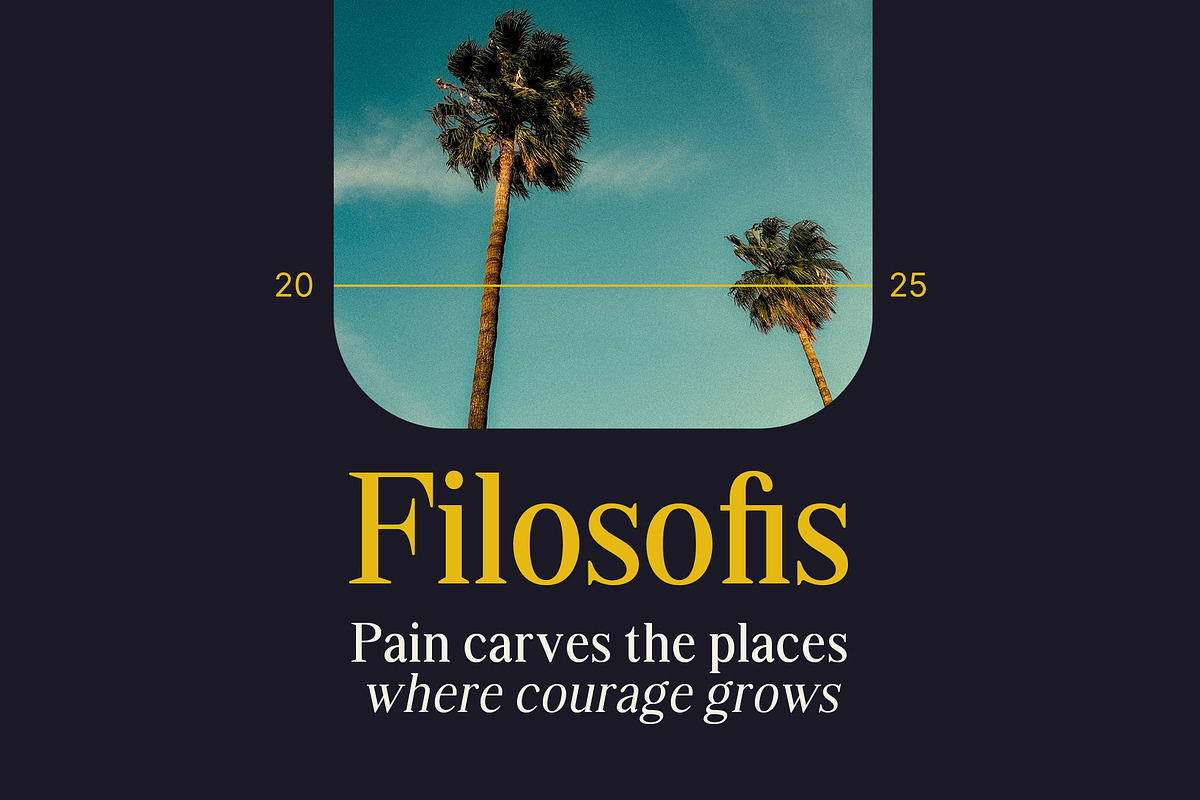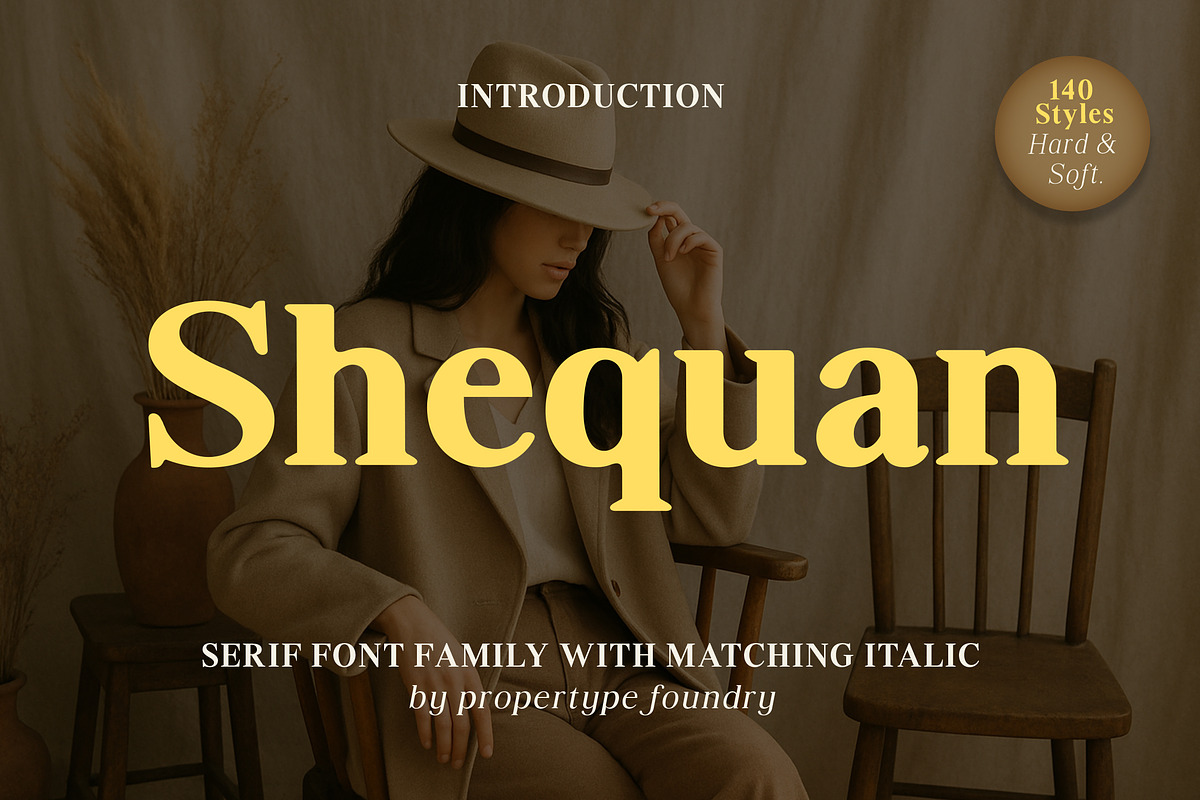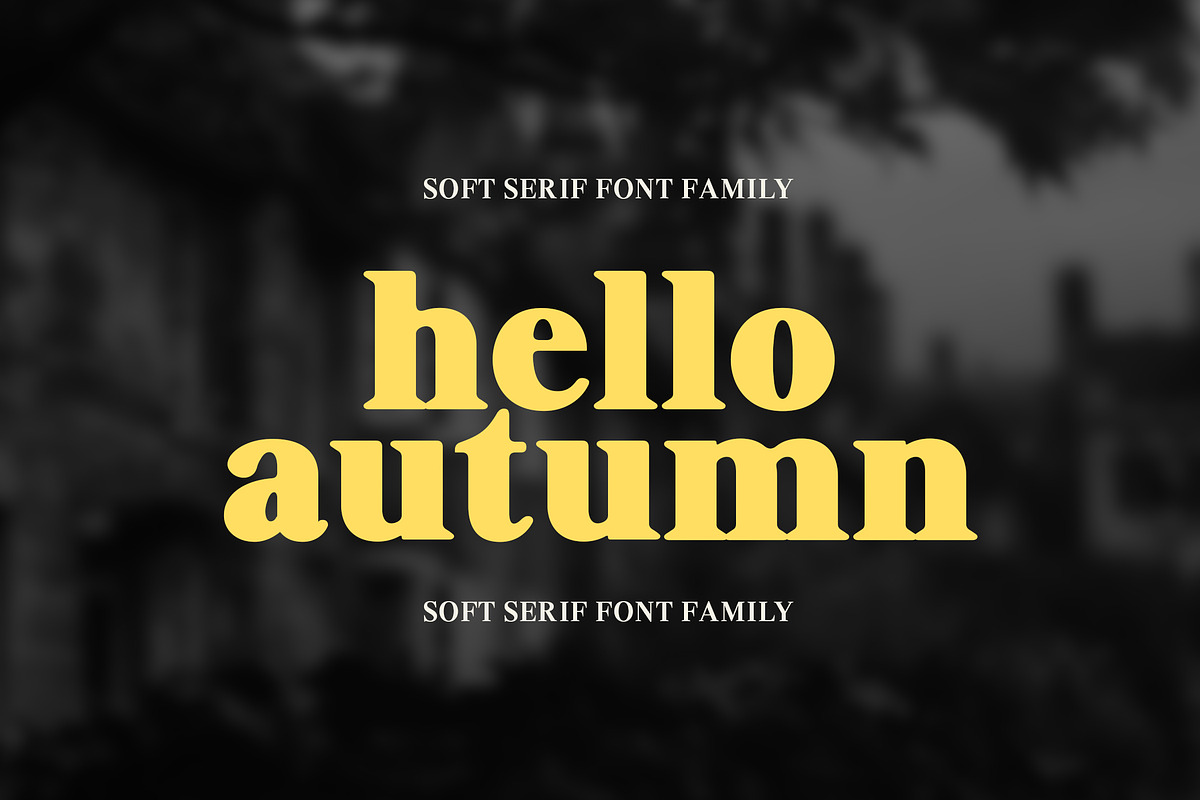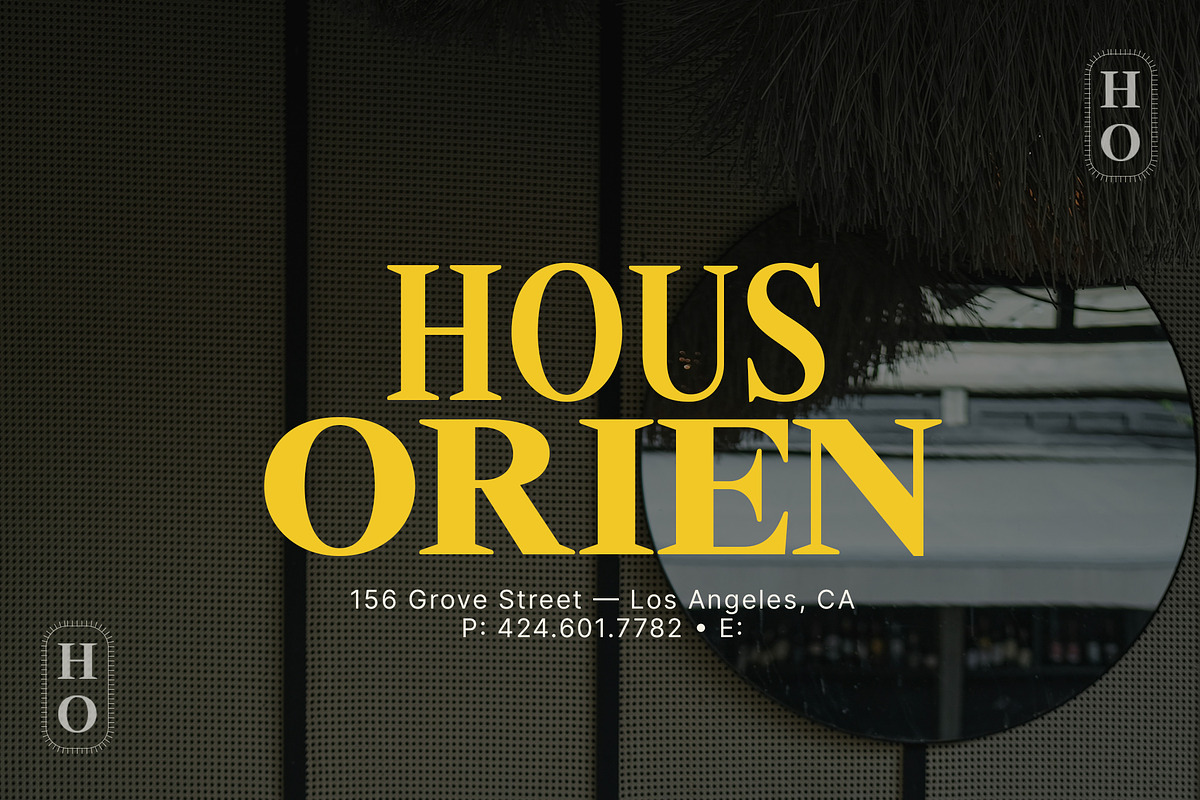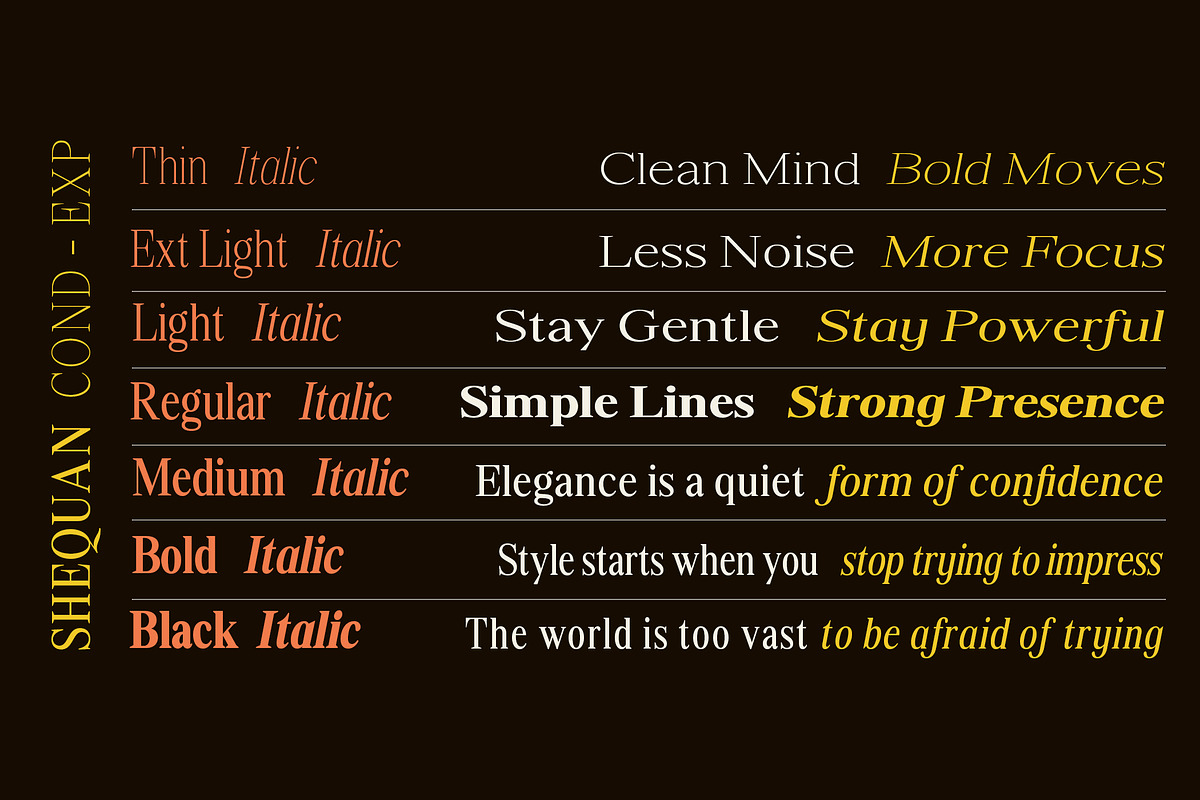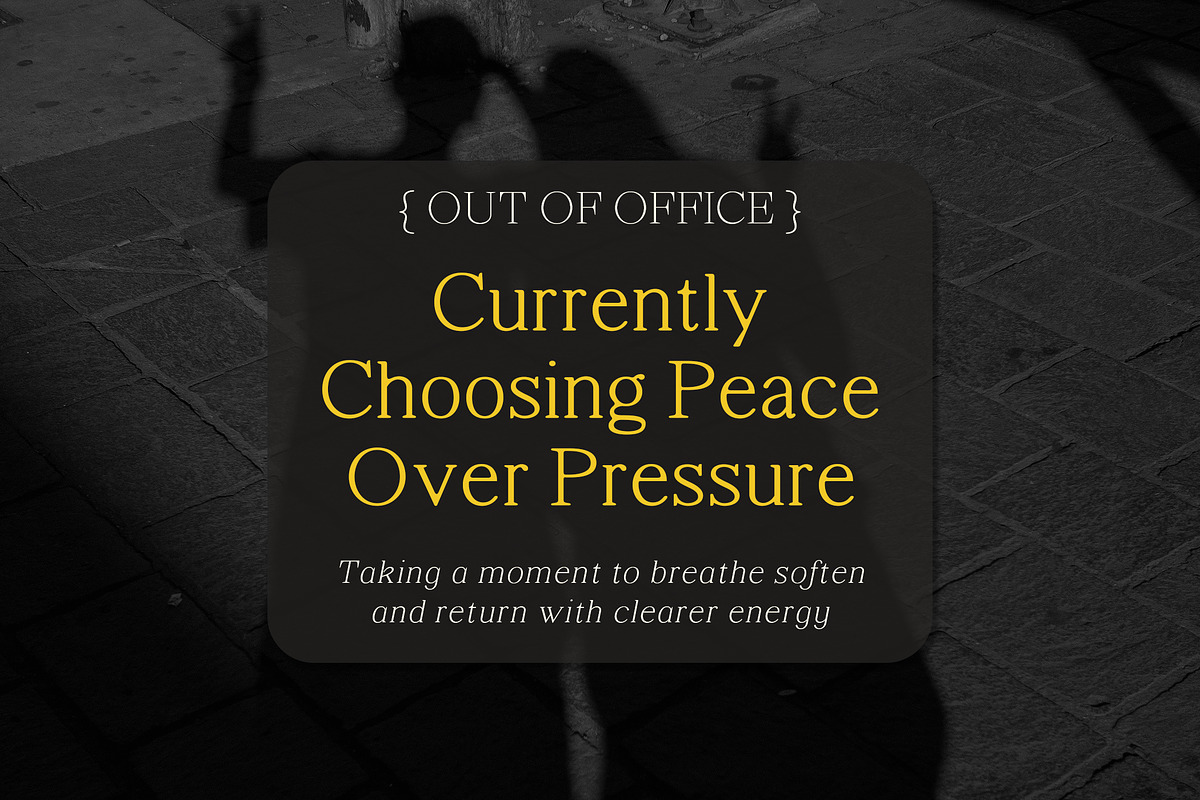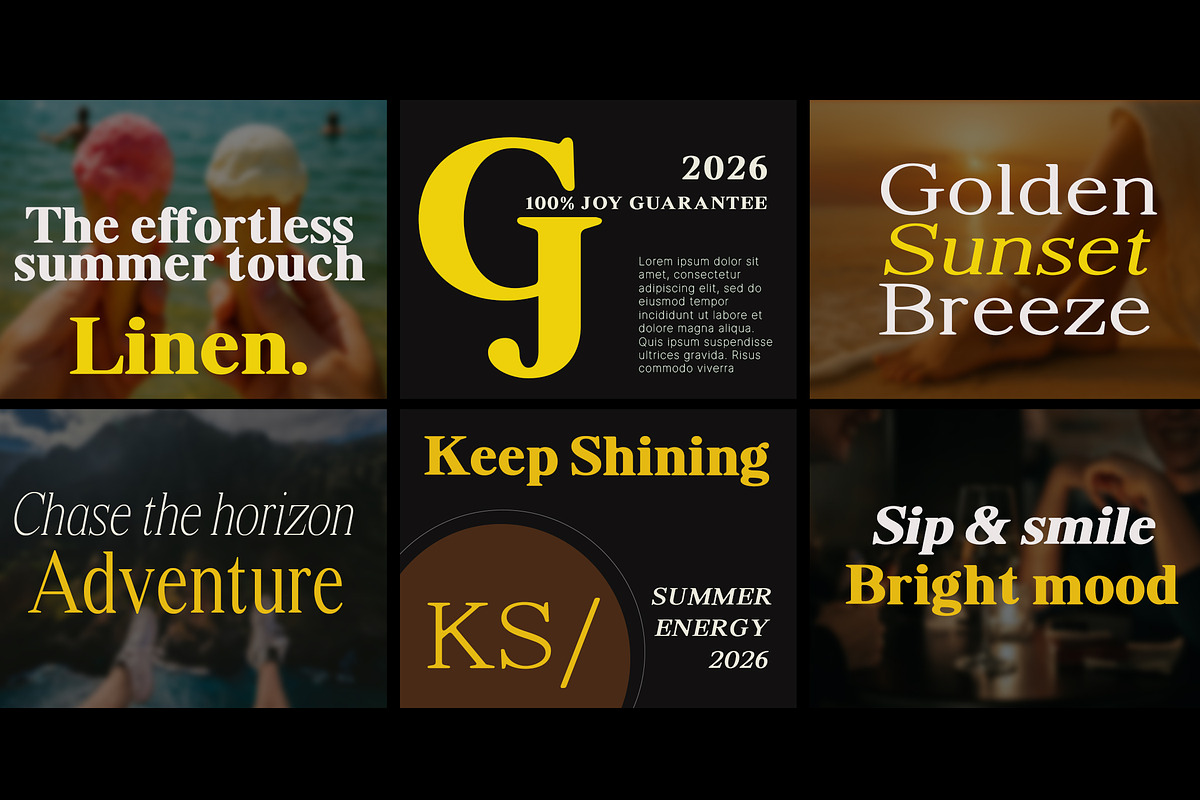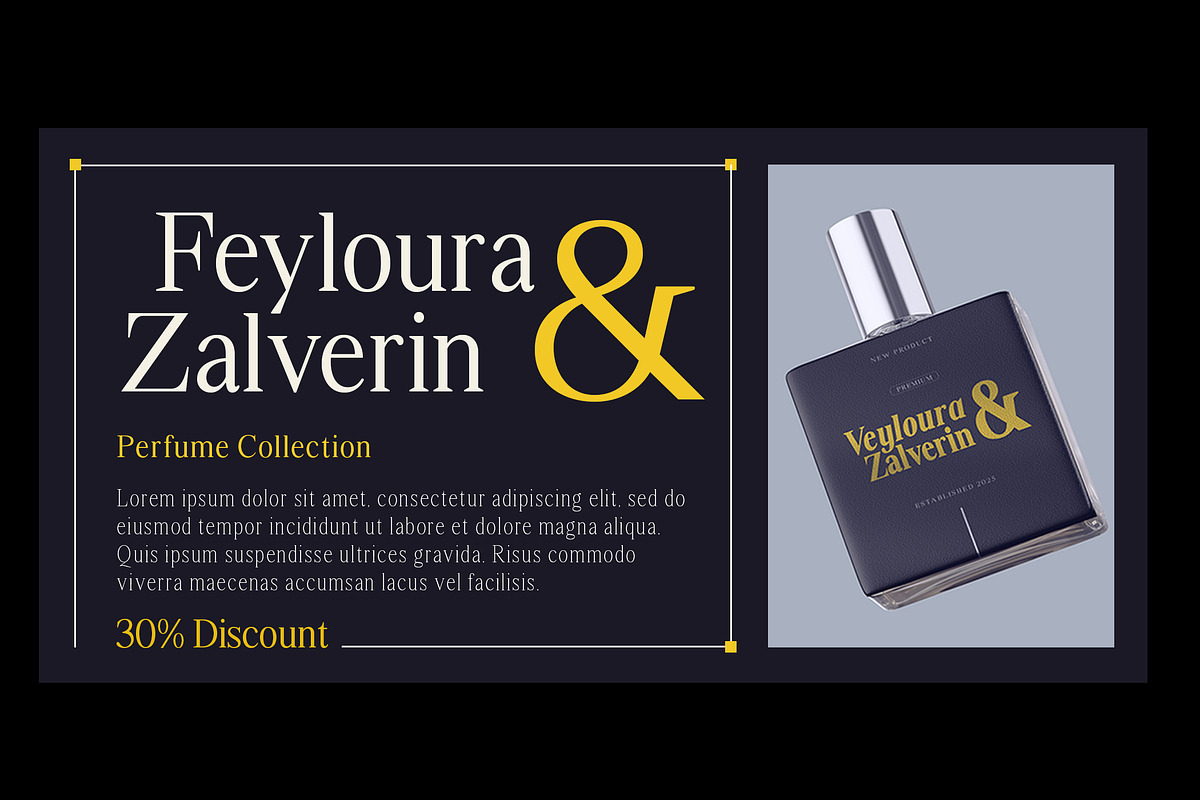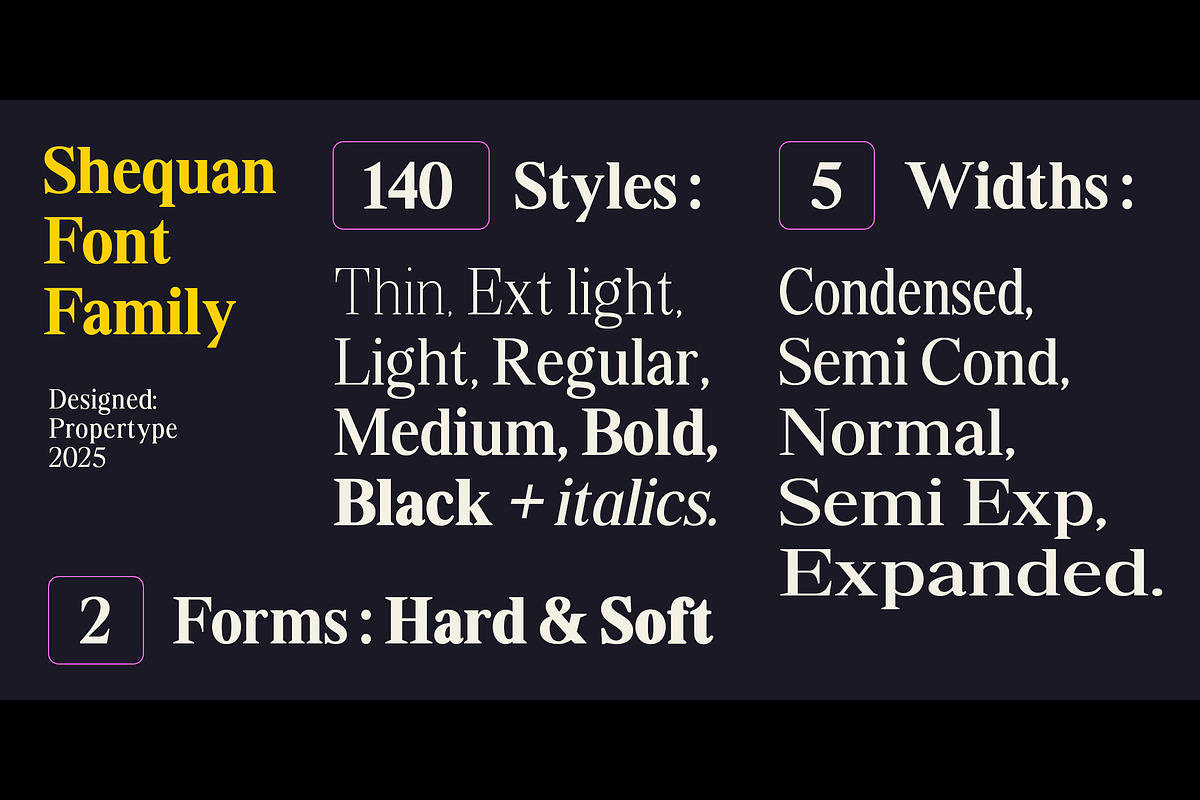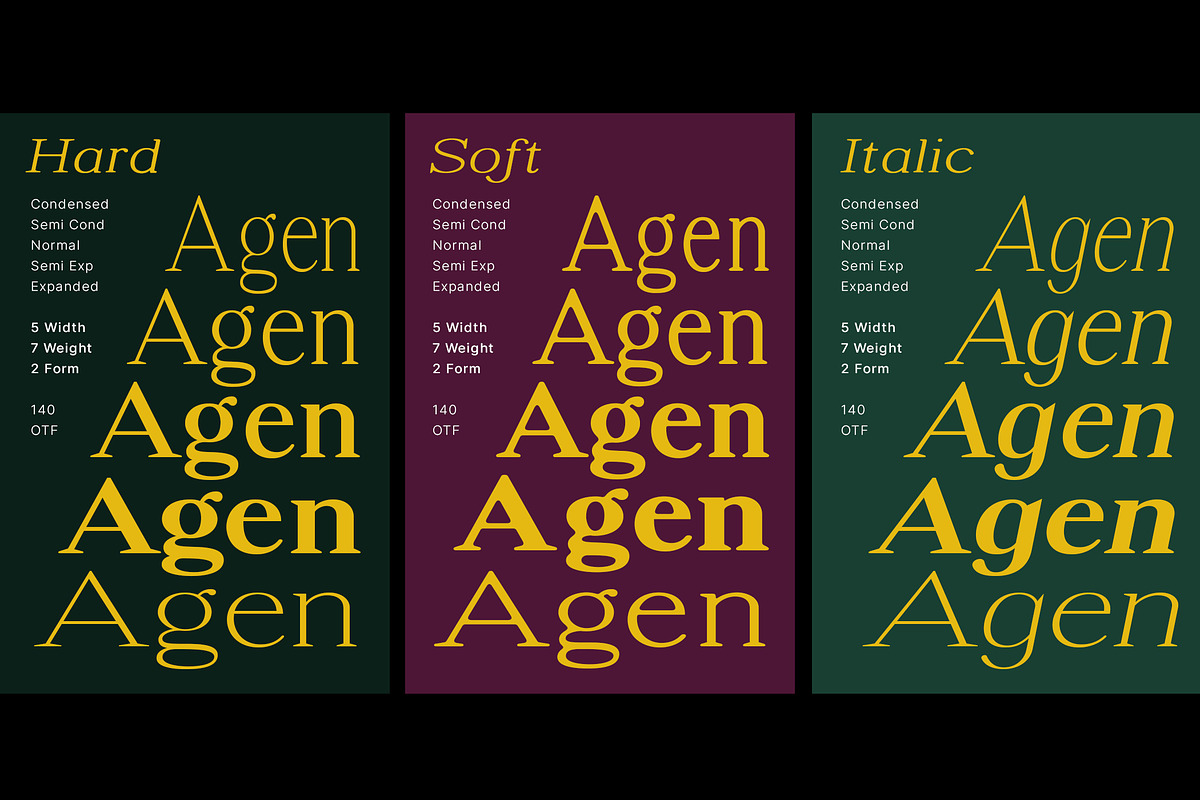
Shequan
Shequan is a modern serif font with an elegant classic touch. Its letterforms feature balanced thick–thin contrast, soft curves, and refined serif details that create a luxurious, warm, and editorial feel. This font comes in 140 styles: 7 weights, 5 widths, and 2 forms with matching italics, and also includes ligatures and multilingual support, making it highly versatile for premium branding, magazine layouts, product packaging, and creative projects that require a classic yet contemporary character.